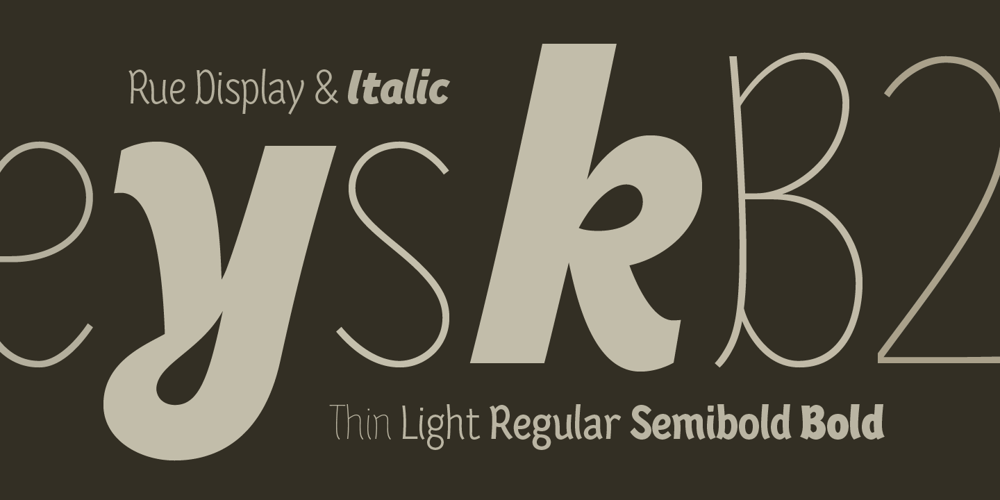
Rue Display Font Family was designed by Winnie Tan and published by Winnie Tan. Rue Display contains 10 styles and family package options. Rue is an organic, casually ornamental, narrow-faced sans serif. It is a display type structured with random traces of calligraphic tendencies. It does not begin with any noble ideals, other than to mediate between the muse of imagination and the act of realization. The spirited and exploratory design is the materialization of a feeling about fonts as a family of organisms taking on a life of its own, in work and play. Rue is the epitome of vanity and indulgence which seems to purpose itself well in aesthetics, wellness and botanicals. Its whimsical quality also suggests applications in the form of gifts and ornamentation. In retrospect, Rue was conceived as a typeface, used as an image and discovered as an ornament. It comes in 5 weights of light, regular, medium, semibold and bold, and their matching italics. Rue Display was published in 2010 by TypeTogether. http://www.behance.net/gallery/Rue/373854